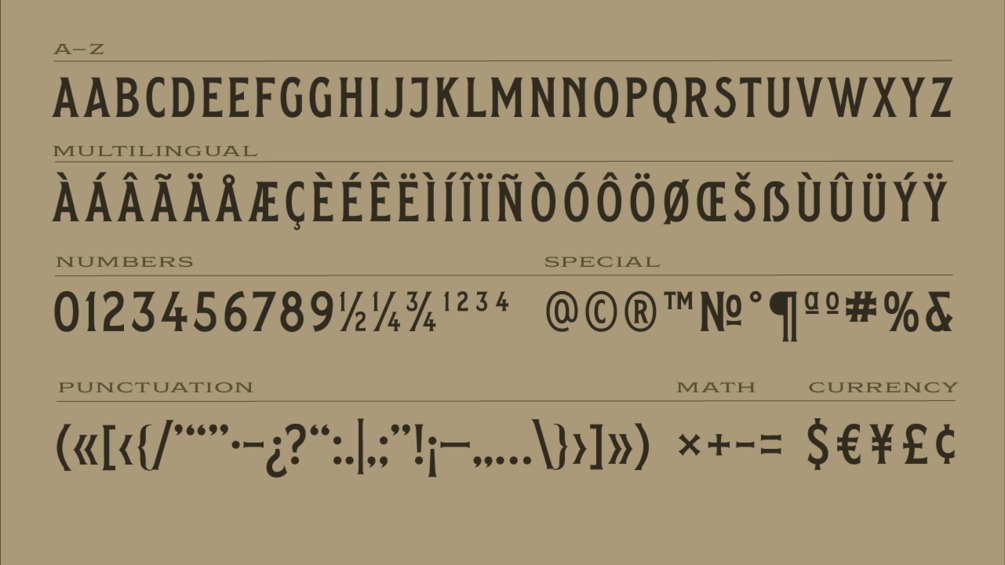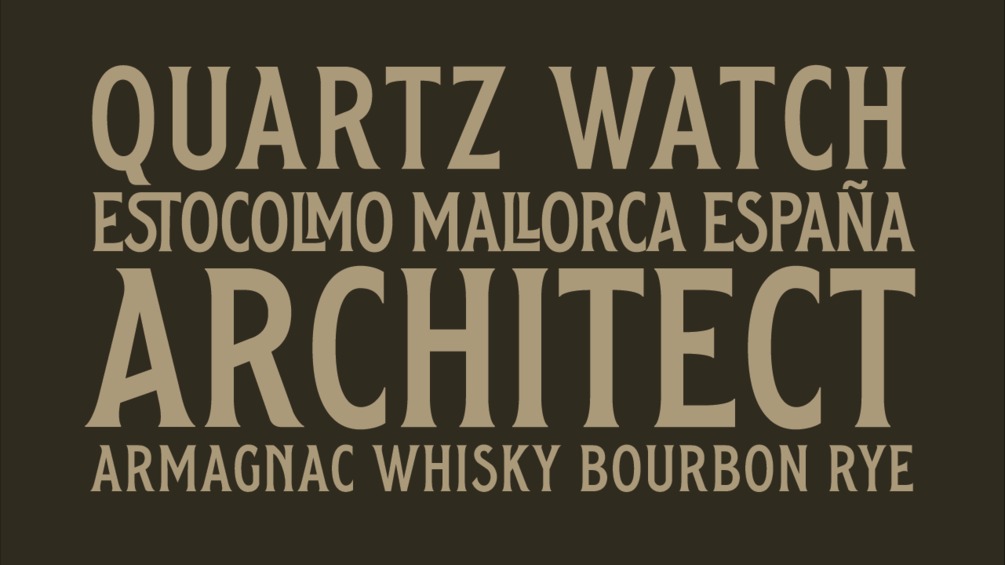
Radgivare No 1 Display Font
This is a tall, simple all caps serif font. It’s designed and shared by HENRIavecunK. The font Radgivare No. 1 supports major languages like English, French, German, Italian, Spanish and Portuguese and 40+ medium or minor languages based on the latin alphabet. Have fun!